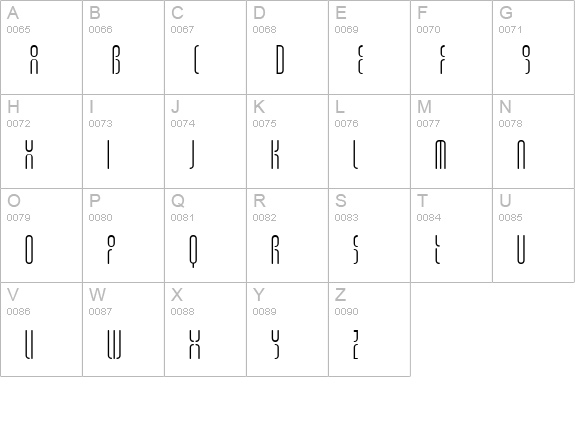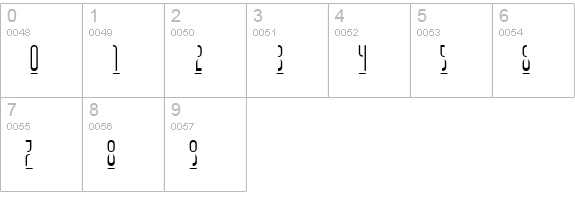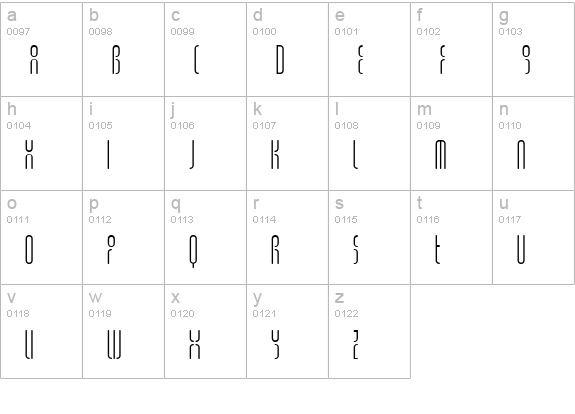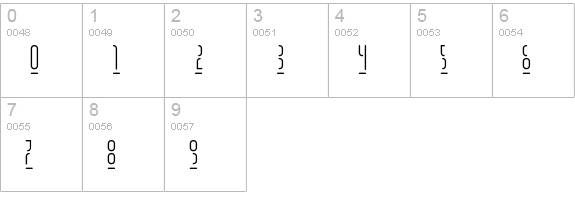
Gen3000 Thin Font Details
Gen3000 Thin is a delicate, low-contrast variant in the Gen3000 typeface family \xE2\x80\x94 well suited to fashion editorial, minimal branding, and high-contrast display.
Introducing Gen3000 Thin font, a sleek and modern typeface perfect for adding a touch of sophistication to your designs. With its clean lines and elegant style, Gen3000 Thin is ideal for various projects, from branding to editorial design. This versatile font is designed to make your text stand out with its thin and minimalist appearance. Whether you're creating a logo, website, or printed materials, Gen3000 Thin will add a touch of finesse to your work. Best of all, Gen3000 Thin font is completely free to download at FontsMarket.com. So go ahead and elevate your designs with this stylish and contemporary typeface without breaking the bank. Upgrade your typography game with Gen3000 Thin today!